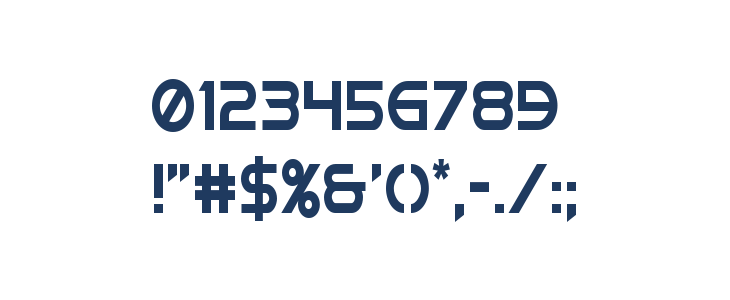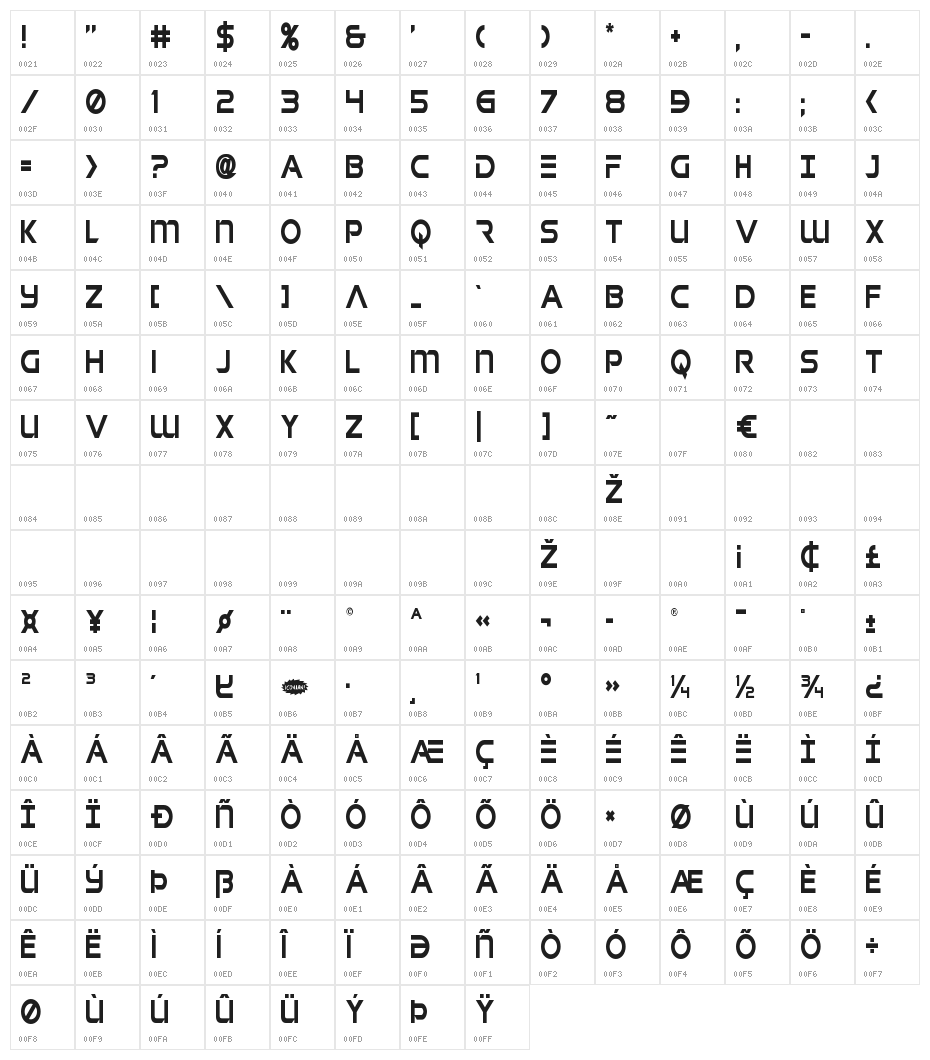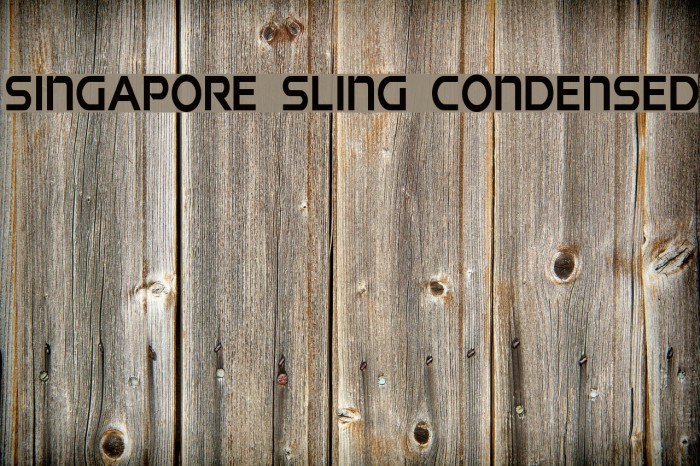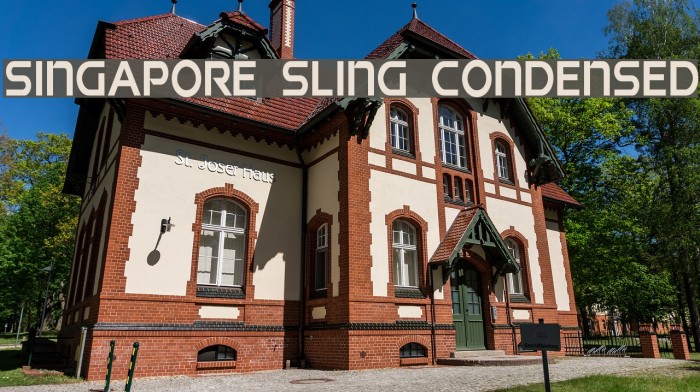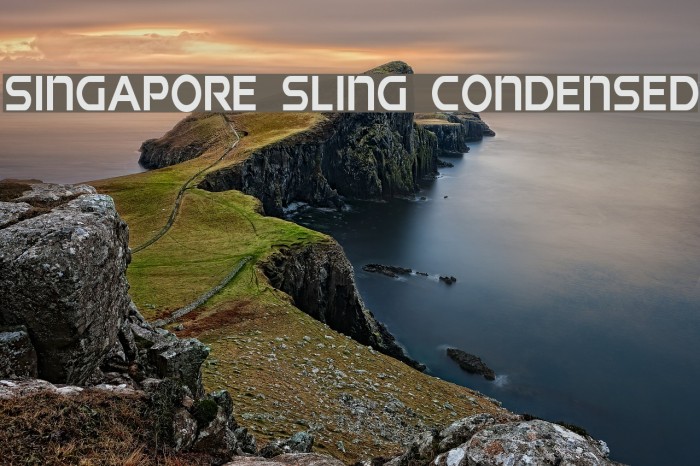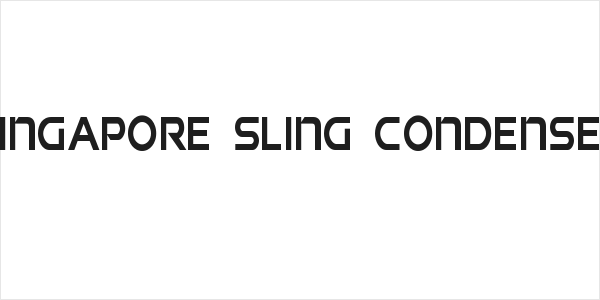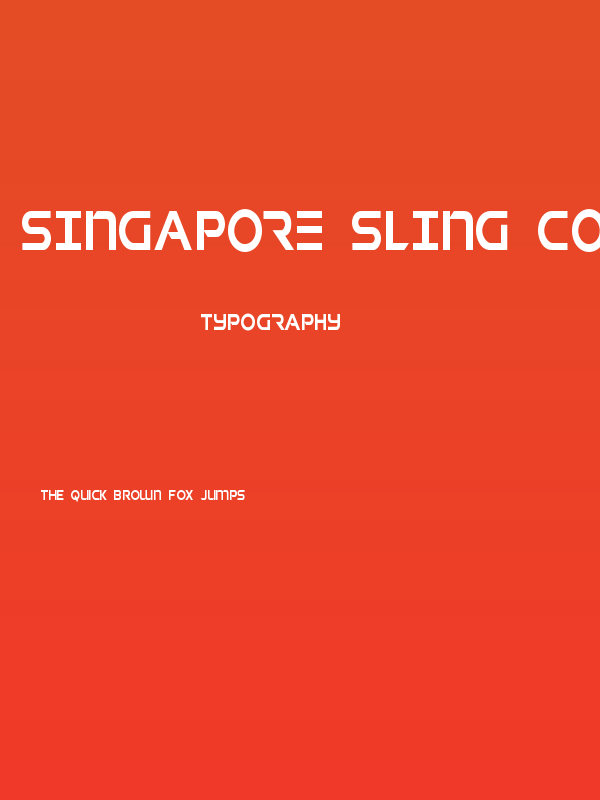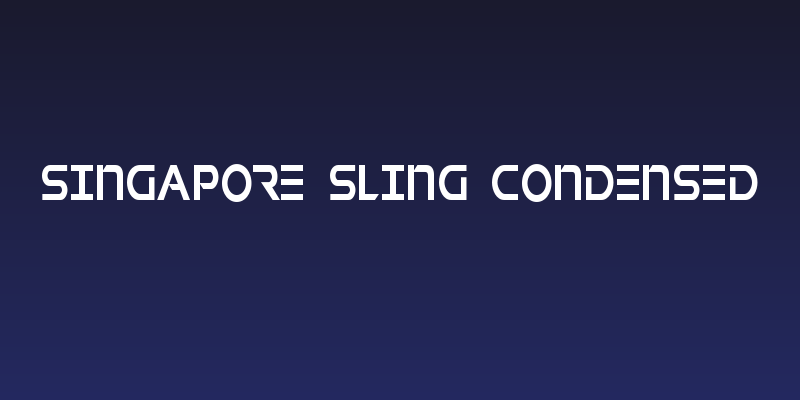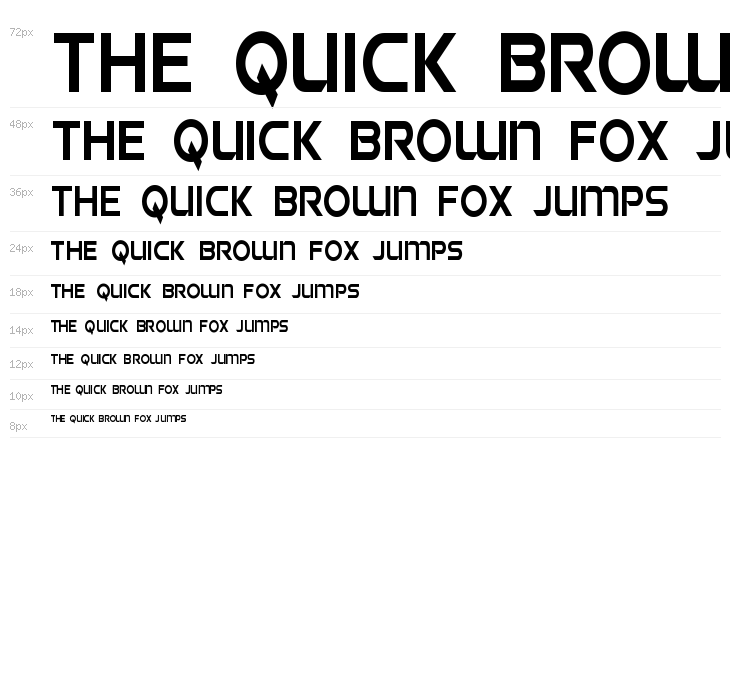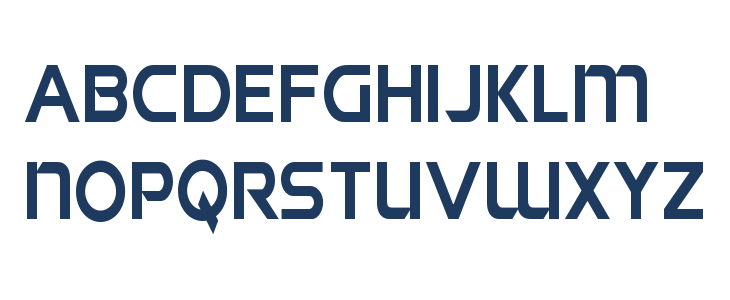
Singapore Sling Condensed Font
Singapore Sling Condensed Description
This font features a bold and modern design with a geometric structure. The characters are condensed, giving it a sleek and compact appearance. The uppercase letters are uniform in height, while the lowercase letters maintain a consistent style that complements the uppercase. The numerals are distinct and easy to read, with a futuristic touch. Special characters are designed to match the overall aesthetic, making this font versatile for various uses. The clean lines and sharp angles contribute to its contemporary feel, making it suitable for digital and print media.